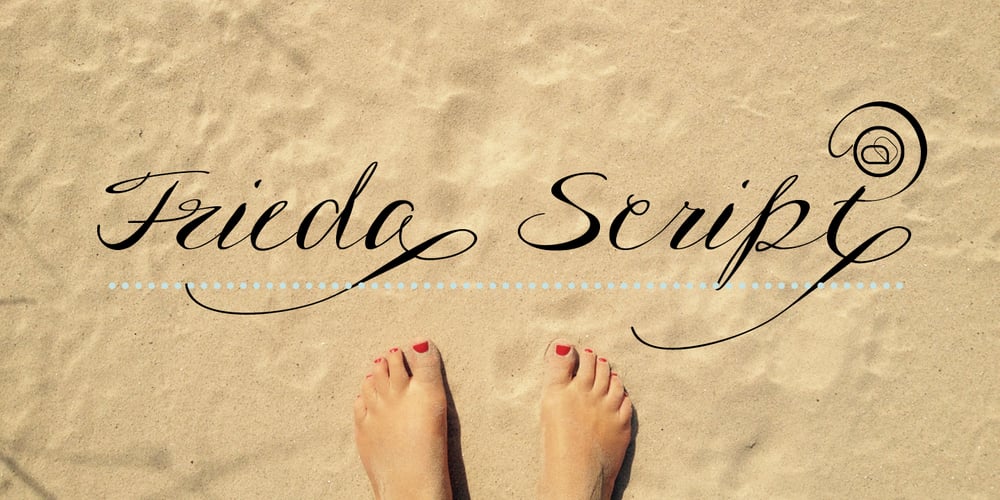
Frieda Font Family was designed by published by driemeyerdesign. Frieda contains 2 styles and family package options. Frieda is a handwritten calligraphy script equipped with contextual alternates features and ligature variations for a customised look. Just add “+” before the letter or manually choose the character from Glyph Palette. Authentic, chic, but also relaxed with a set of beginning and ending extensions. Frieda can be used for weddings, greeting cards, invitations, books, menus, advertising, etc.